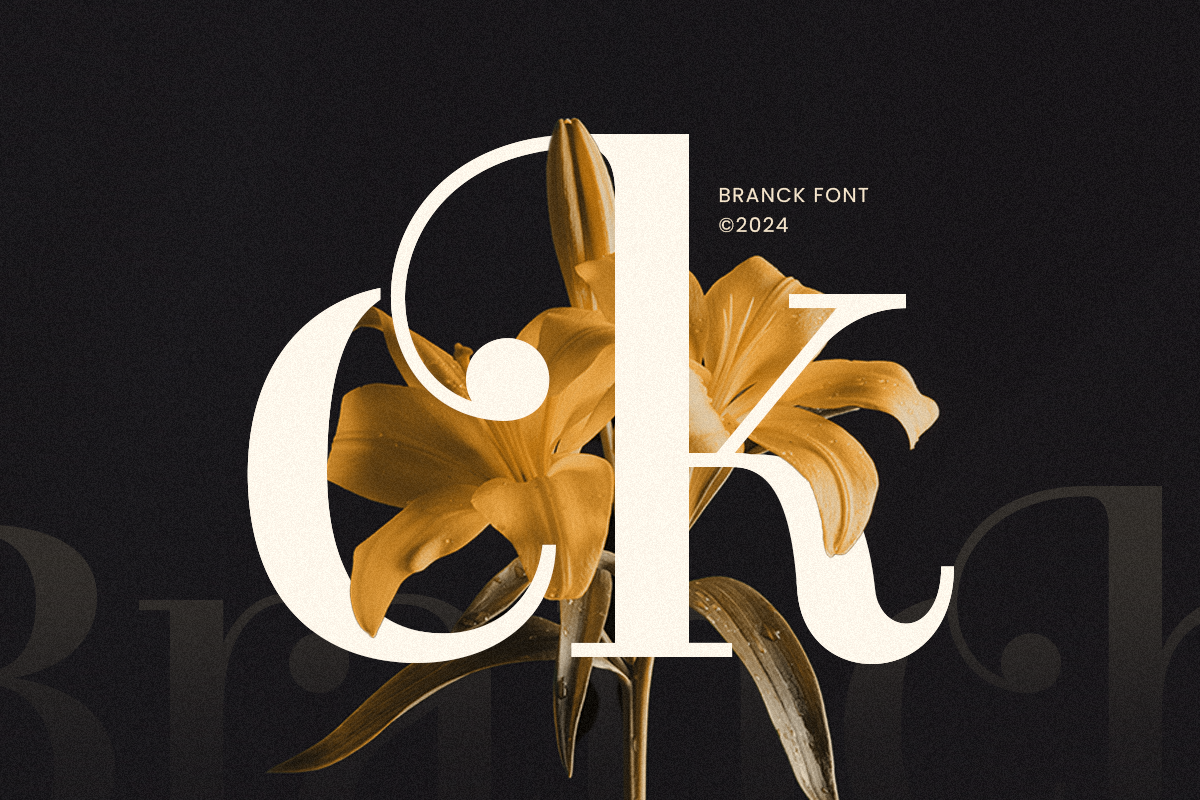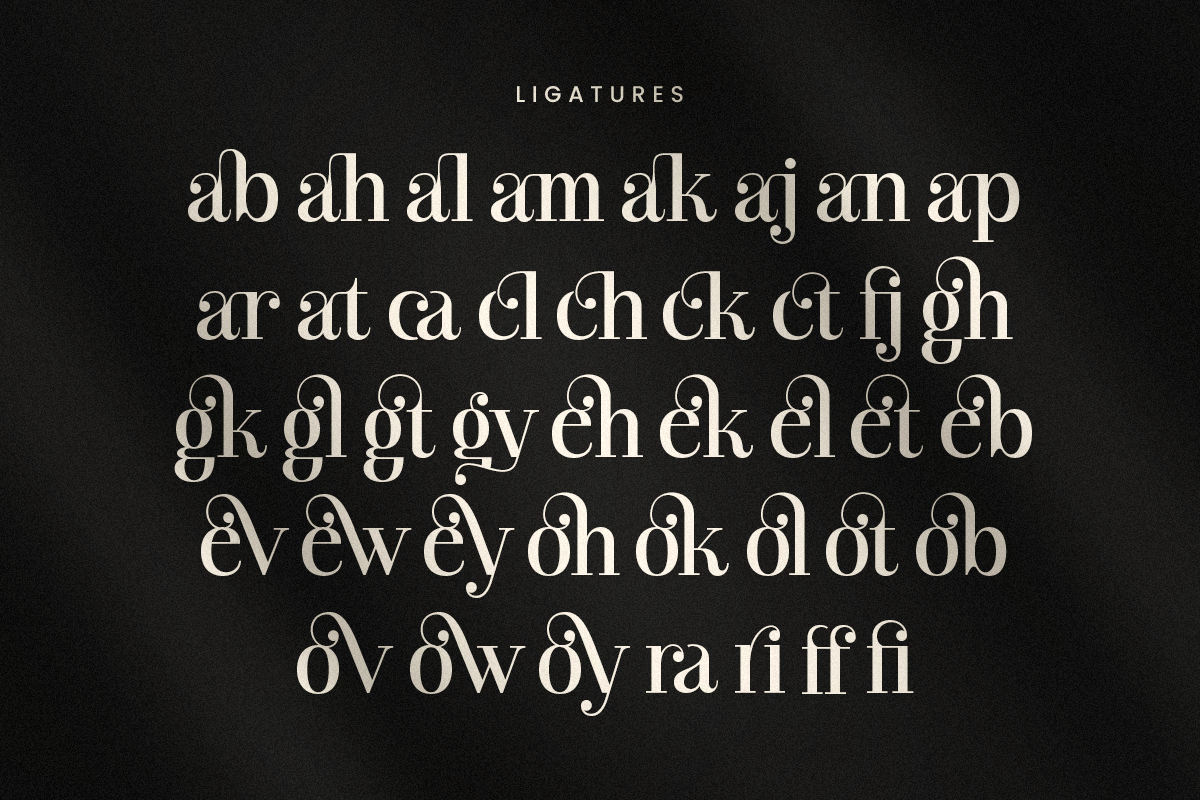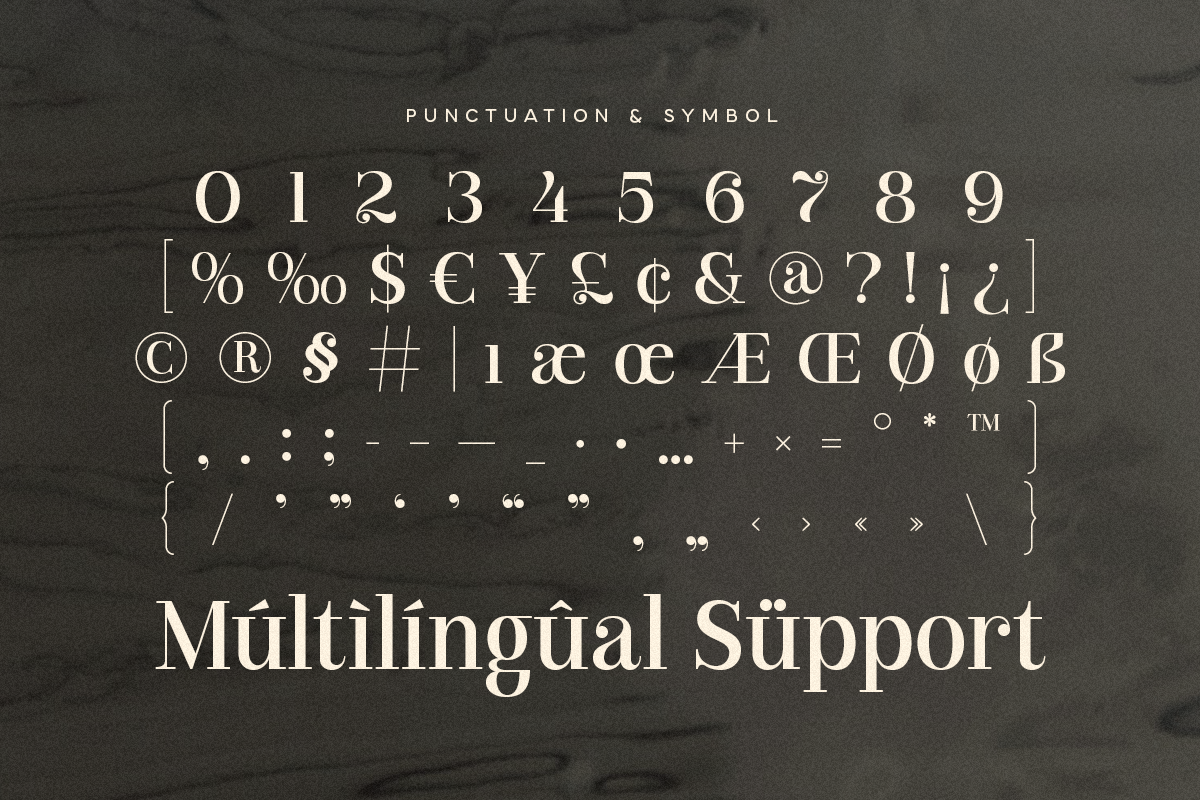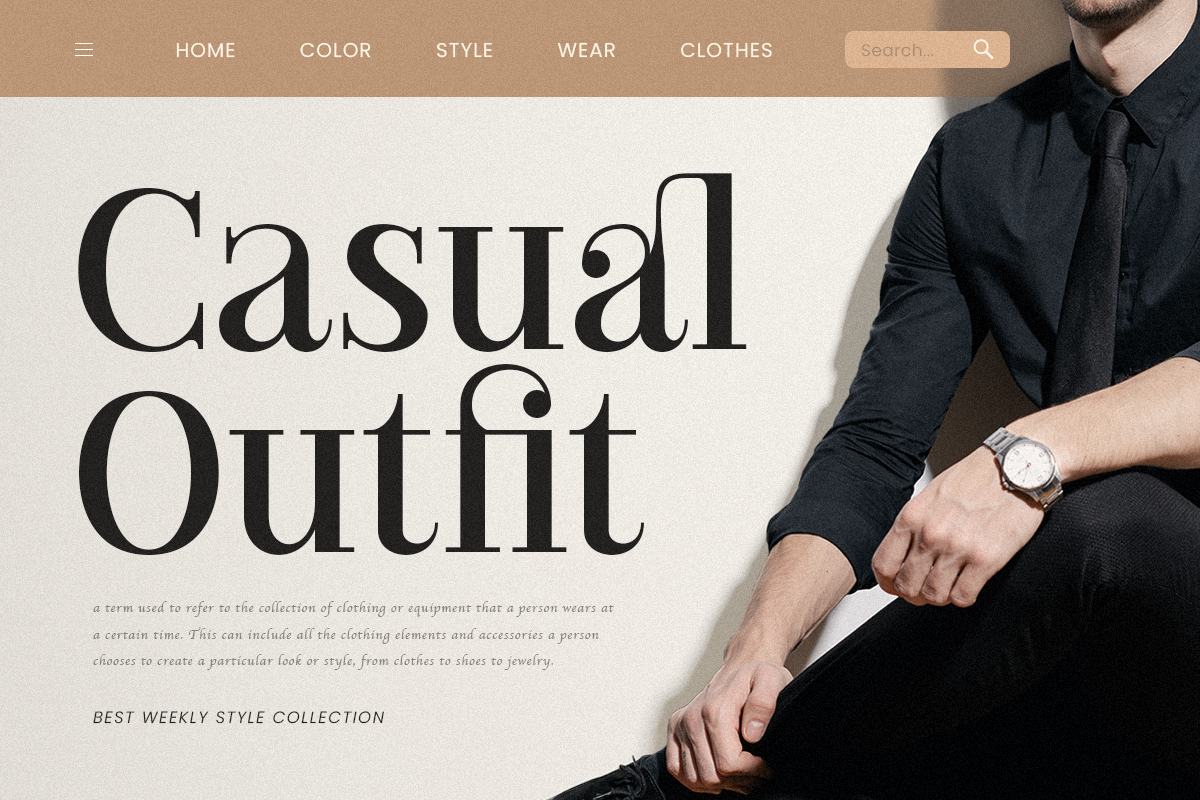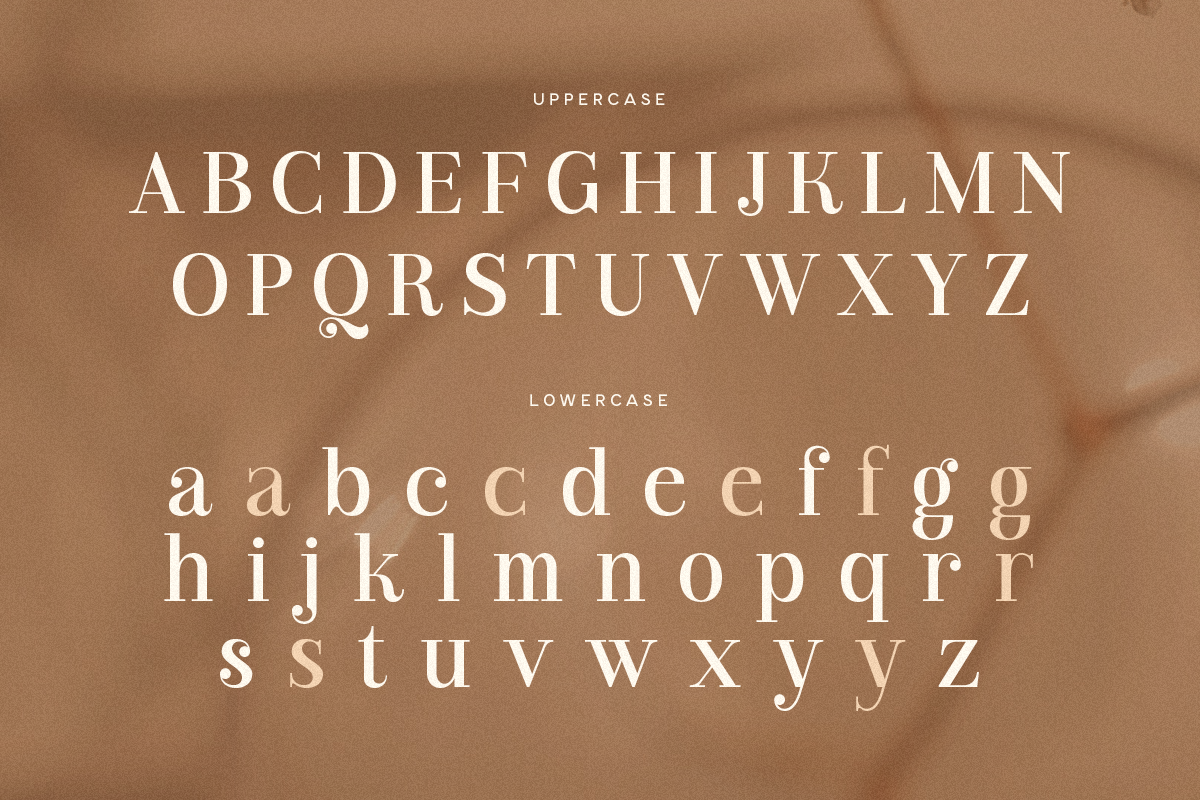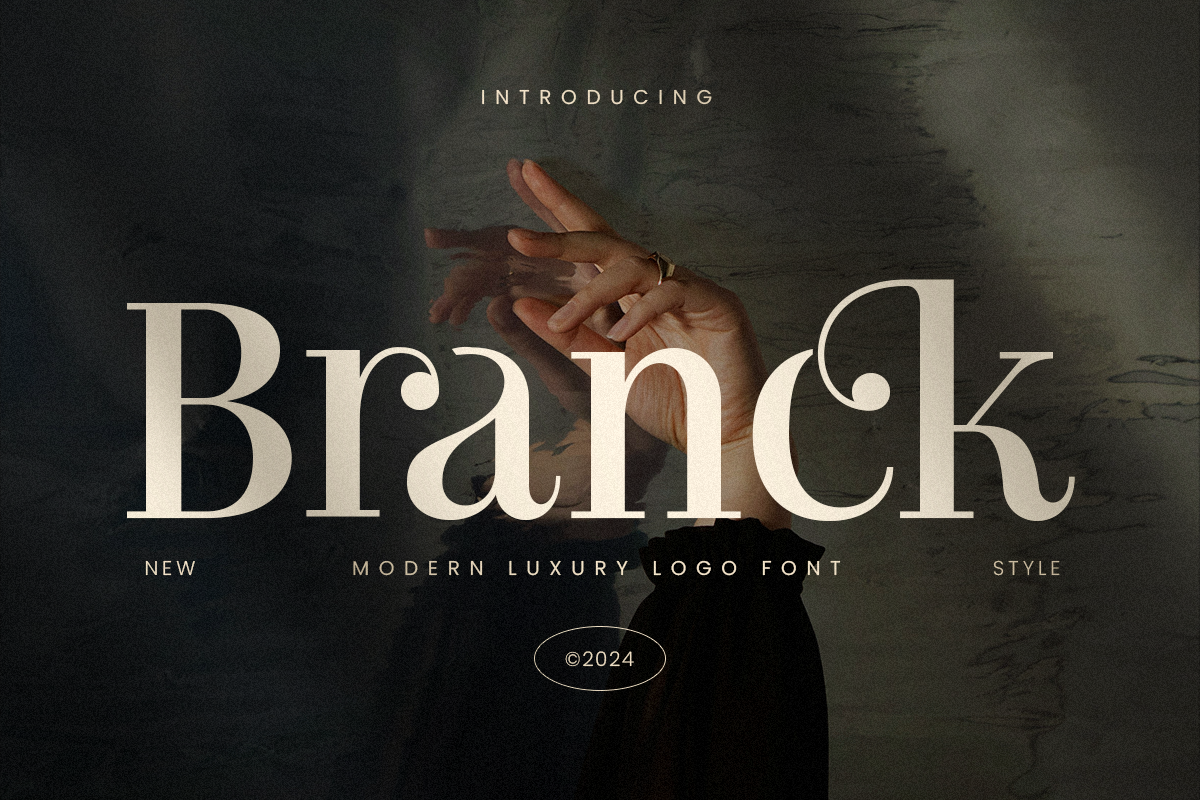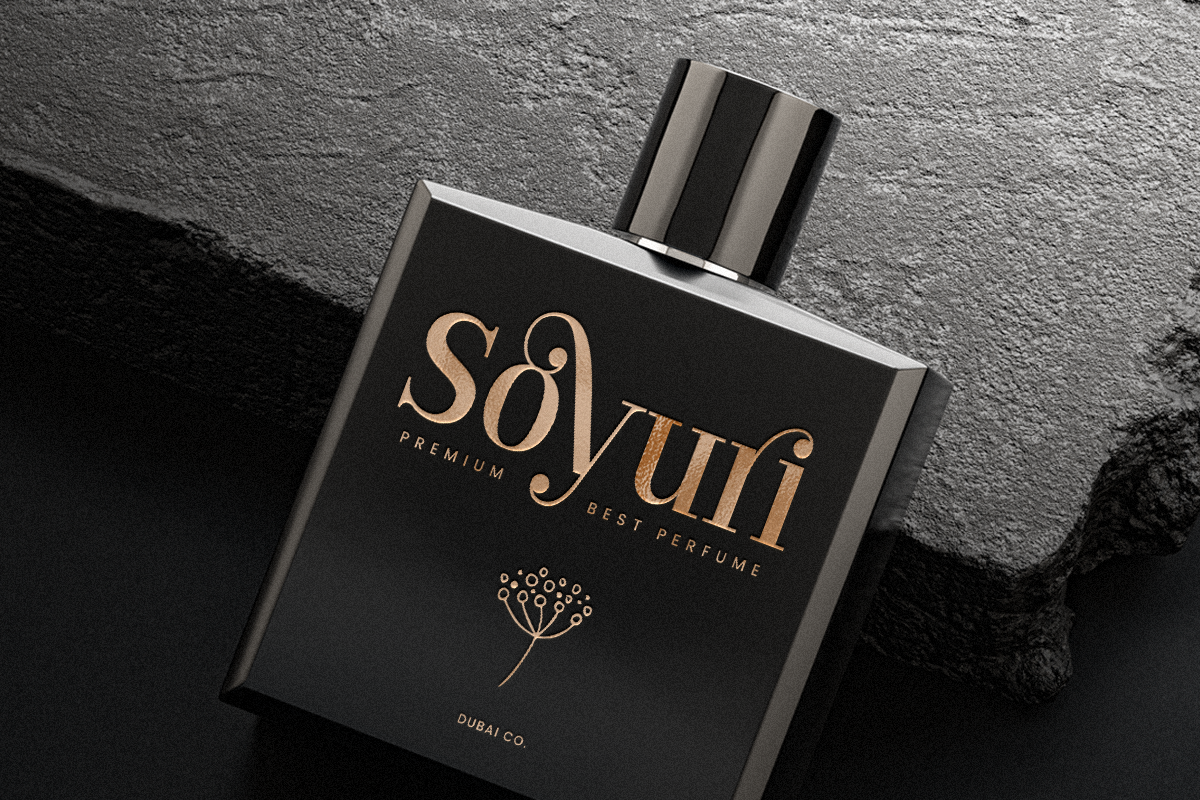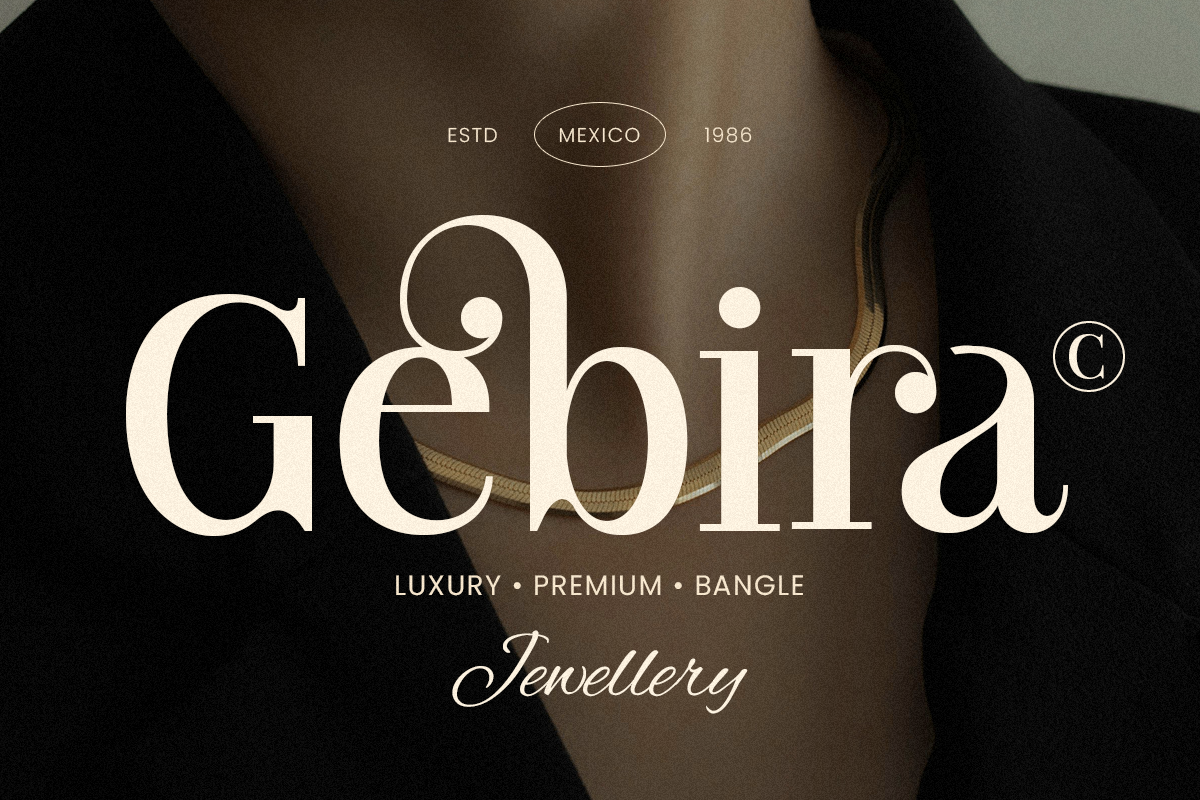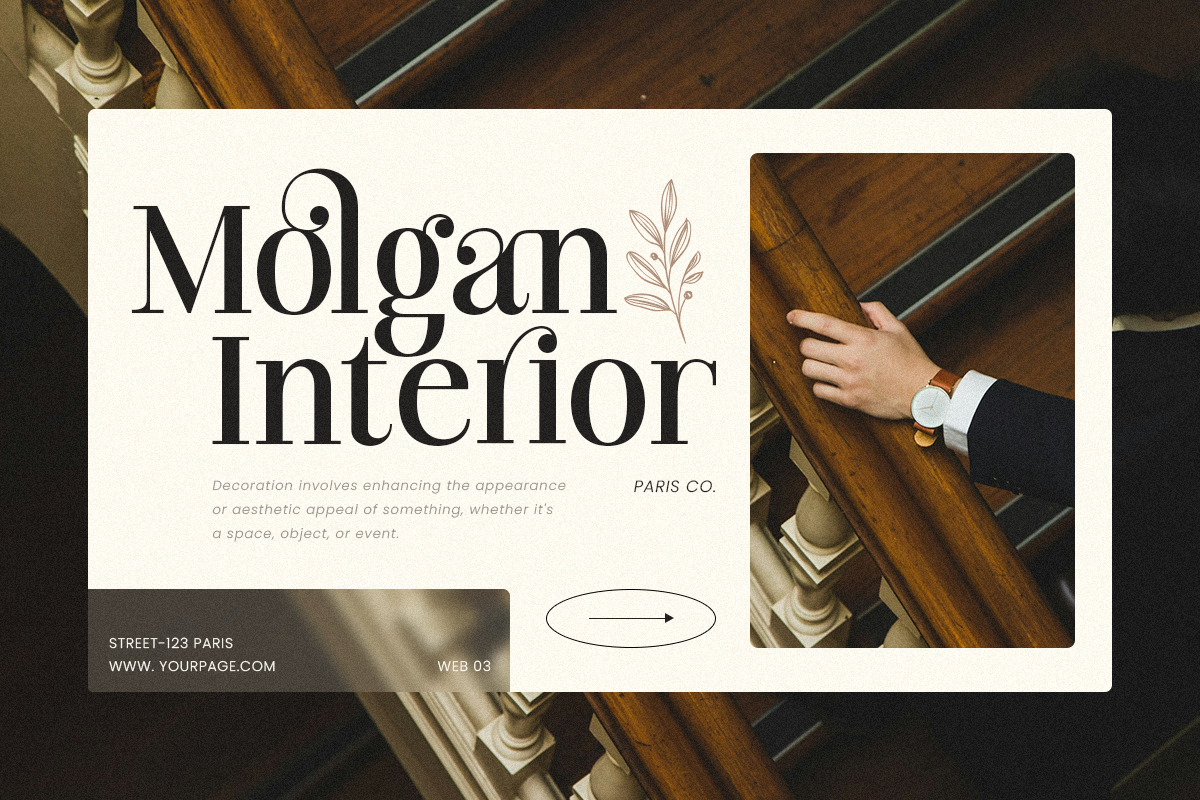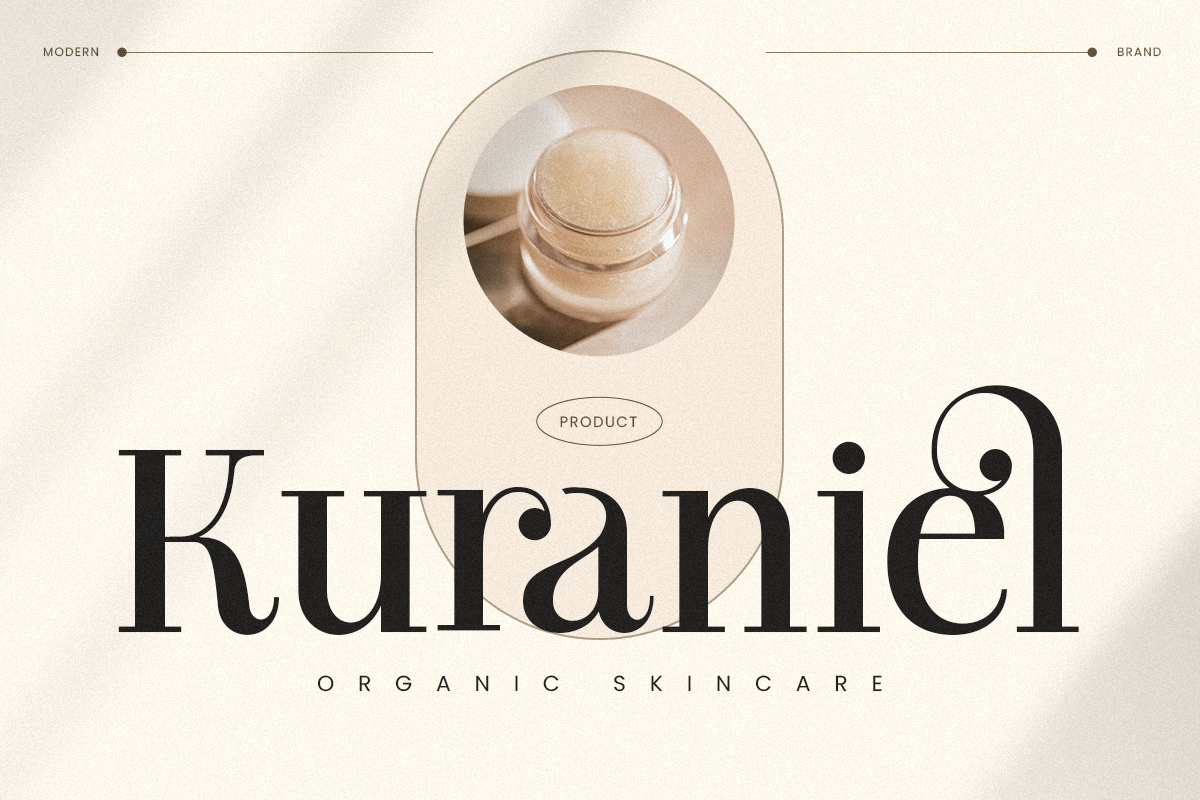
Branck - Modern Luxury Logo Font
Branck is a modern luxury logo font crafted to infuse sophistication and elegance into your branding projects. Inspired by high-end fashion, premium products, and sleek architecture, Branck delivers a refined aesthetic that appeals to discerning tastes. This versatile font features clean lines and stylish curves, making it ideal for logos, branding materials, and any project that demands a touch of class.
The Story Behind Branck:
The creation of Branck was driven by a vision to blend contemporary design with timeless luxury. Drawing inspiration from the worlds of high fashion and premium products, Branck embodies a chic and polished aesthetic. Its design is meticulously crafted to enhance the visual appeal of any project, ensuring your brand stands out with elegance and sophistication.
- Clean lines and stylish curves
- Versatile and adaptable for various design projects
- Perfect for high-end branding and premium products
- Adds a touch of class to logos and branding materials
- Suitable for sophisticated and modern design aesthetics
Best For:
- Logo design
- Branding materials
- High-end fashion projects
- Premium product packaging
- Elegant website headers
Elevate your design projects with Branck, the modern luxury logo font that brings a touch of sophistication to your brand.